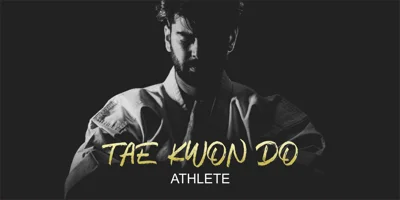
Brookliness Font
Brookliness Font is perfect for urban lifestyle branding, hipster coffee shop signage, trendy restaurant menus, artisanal craft beer labels, vintage streetwear logos, independent bookstore displays, authentic barbershop branding, and Brooklyn-inspired fashion campaigns. This authentic typeface excels in urban culture applications, neighborhood-focused designs, and any project requiring genuine street credibility that captures the essence of authentic city living and community spirit.
What makes Brookliness Font exciting is its authentic urban character and neighborhood charm that perfectly captures the spirit of genuine city culture and community pride through carefully crafted letterforms. The font features organically designed characters with subtle industrial influences and local authenticity that evoke feelings of belonging and urban sophistication, making it ideal for brands seeking to establish genuine connections with urban communities and convey authentic street credibility. Its neighborhood personality ensures instant recognition of local culture and urban authenticity.
Brookliness Font family includes multiple weights and styles: Regular, Bold, Light, Medium, Italic variations, and weathered alternates with urban texture elements and street-inspired embellishments. Each family member maintains the distinctive neighborhood character while offering comprehensive design options for authentic urban campaigns, from subtle community text to bold street headlines that establish local credibility and urban sophistication.
Whether you're designing local business identities or creating authentic urban lifestyle campaigns, Brookliness Font provides the perfect typography solution for neighborhood branding needs. This font transforms ordinary text into genuine urban expressions that communicate community spirit and authentic city culture. Local businesses and urban lifestyle brands choose this typeface for its ability to convey neighborhood authenticity through carefully crafted letterforms that celebrate genuine urban living and community pride.